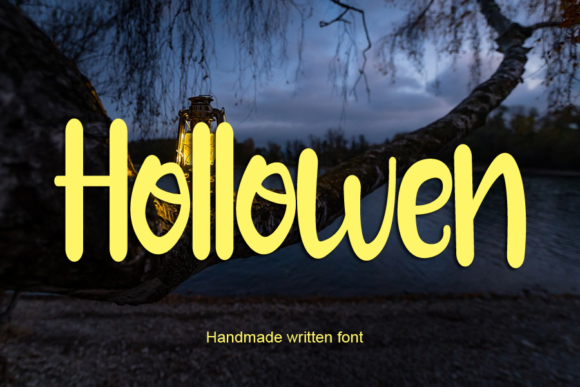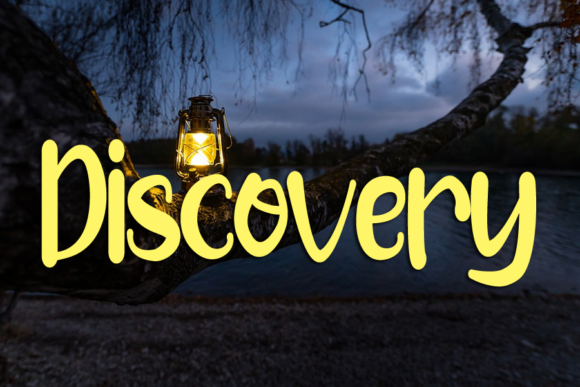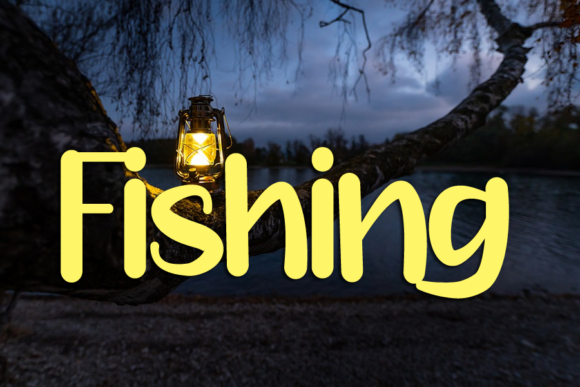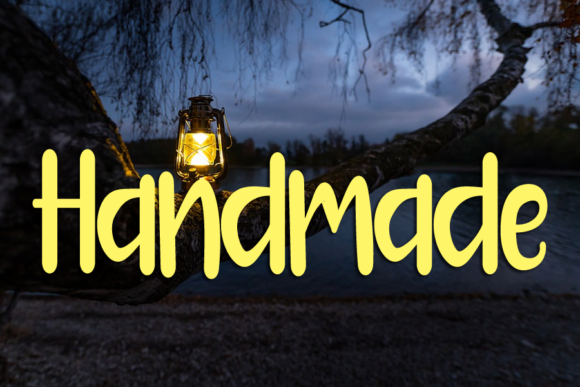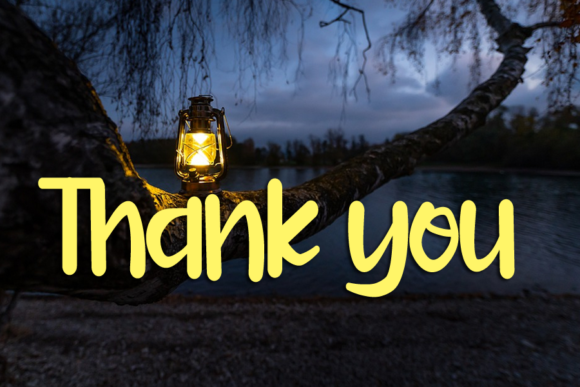
Hollowen Font
About Hollowen Font
Hollowen is a beautiful lettered and simple script font. Fall for its well-balanced style and use it to create gorgeous wedding invitations, beautiful stationary art, eye-catching social media posts, and much more!